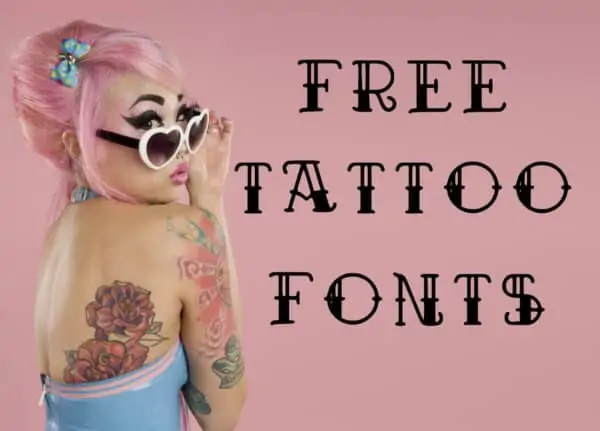
Tattoo Fonts
A tattoo will be on your skin forever so it is important to spend time looking at tattoo fonts until you find one that you like. We offer a few different tattoo lettering fonts you can try before you make a decision.
Tattoo Writing
Tattoo lettering is one of the most important parts of your tattoo if you are looking for a script tattoo. You will need to find a tattoo script font you like and that looks good with the image that you want (if you want one) and the style that you like.
You have to decide on what to write. It can be a single word, a phrase, or a sentence. Then decide on the tattoo font to use. You will also need to decide if you want to use lowercase letters or uppercase letters or a combination of them.
You can play around with our free tattoo generator until you find a design that you like. When you go to your tattoo artist, show him or her the font style that you would like and see if they can create it for you. If you show them a sample of the design that you want then it will be easier to explain what you are looking for.
When it comes to tattoo writing, there are no rules. You want to find a design that you love since it will be on your skin forever. Try a few of our tattoo lettering styles before you make a decision.
Different fonts for tattoos
Here are some cool tattoo fonts.
Cursive tattoo font
The script tattoo is one of the most popular tattoos in the world. You can use a quote, names, or a slogan. A tattoo script font is written in calligraphy and mimics cursive handwriting. It is based on a varied and fluid stroke similar to handwriting.
Old English font tattoo style
This old English Roman numeral tattoo font generator will produce Gothic letters or a vintage tattoo font. Old English fonts are quite popular on tattoos. See Gothic Font
Typewriter font tattoo style
This font is great for word tattoos with a typewriter style font.
Tattoo number fonts
If you are going to include numbers or dashes in your tatt then you will need a number font. If you include numbers and letters then you will probably want to use the same font for both. Choose a font that has special characters and ligatures if you want to include punctuation.
10. You can also add images from the gallery such as an anchor, skull, dragons, hearts (sometimes used to show true love), or other images.
Examples of Tattoo Wording
Names
Add the names of people you love. Either write their name or their title such as “mom”, “dad”, “husband”, or “wife”.
Tattoo Quotes
You can include motivational quotes such as “never give up”. Put it in a place where you will see it when you need motivation.
• If you can dream it, you can do it
• Never give up
Tattoo Writing Fonts by Gender
Tattoo fonts for women
Many women prefer a more feminine font or an elegant script. Cursive handwriting is a popular choice. Choose one with swashes if you like the thin strokes at the ends of words or letters.
Tattoo fonts for men
Whereas the cursive tattoo font above can be quite feminine, tattoo fonts for men are usually more masculine. All simple tattoo fonts can be used by men including the Old English font below and the typewriter font above. Fonts for men usually have bold lines.